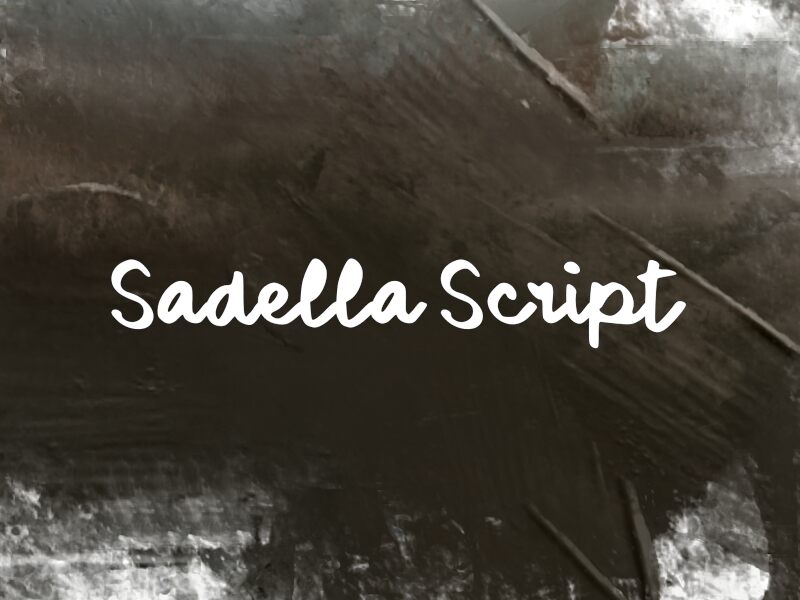
Sadella Script
Sadella Script font by wepfont.com is a free handwritten font that solves a common script headache: staying warm and personal without turning messy. Its rounded, inky strokes have a steady rhythm and just a touch of bounce, so words feel friendly and expressive while still reading clearly at a glance. The letters link smoothly, as if written with a soft brush pen, giving text a cozy, human touch.
Using Sadella Script, you can bring charm to product packaging, handwritten-style logos, quote graphics, wedding stationery, photo captions, and social media posts. This free font holds its shape nicely at larger sizes, where the bold curves and loops really shine. For an easy pairing, set Sadella Script for headlines and combine it with a clean sans serif for small supporting text.